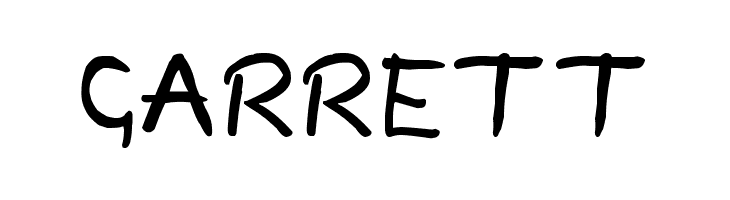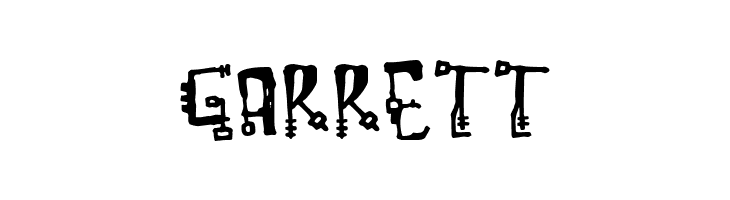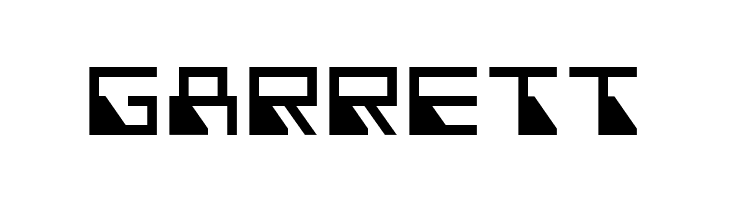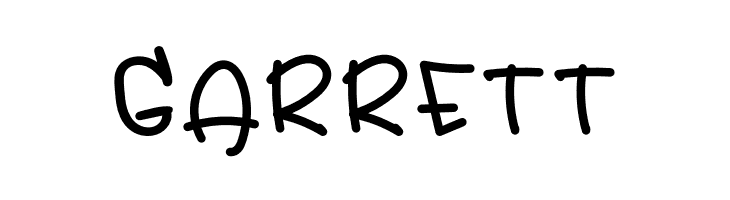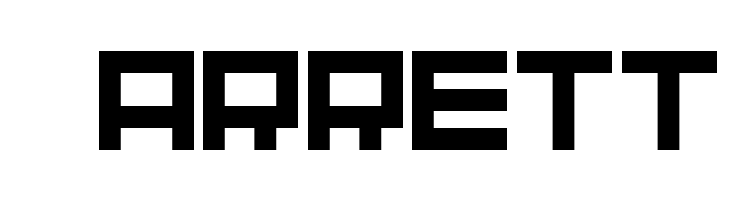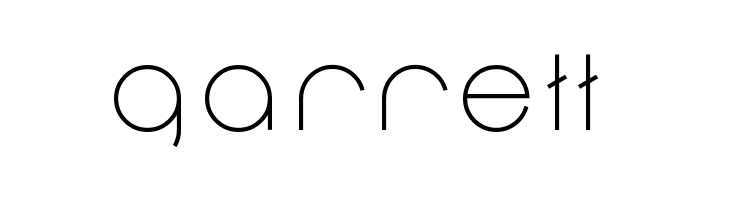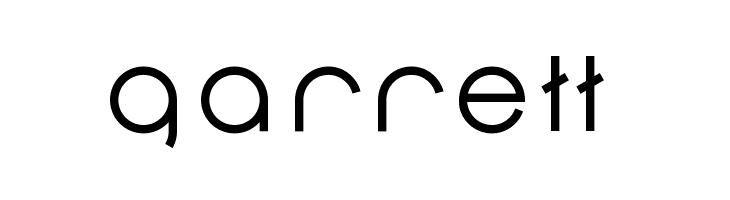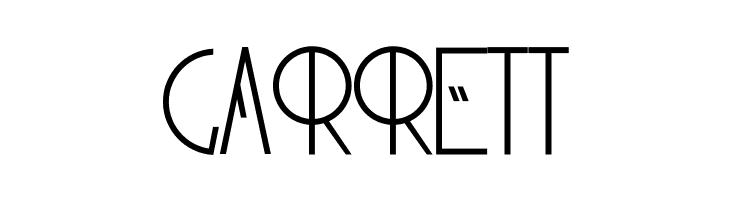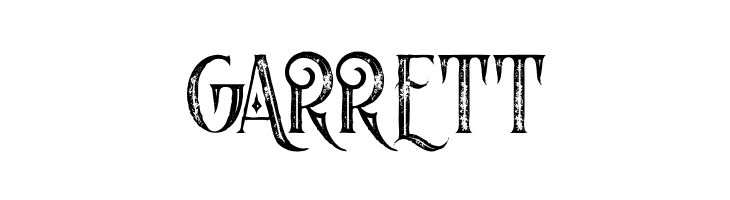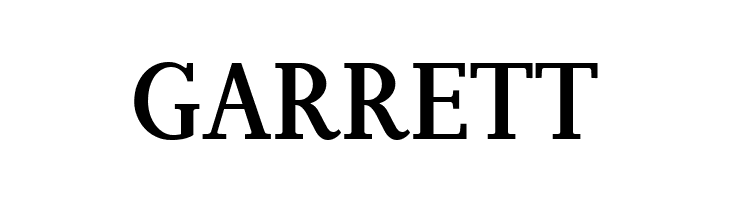
A grunge-style font with an inline design and decorative serifs.
A decorative grunge font with inline detailing and a vintage, distressed look.
A bold, narrow font with a modern and geometric style.
A decorative font with a mechanical, handcrafted appearance.
A bold, angular font with a futuristic and mechanical style.
A modern serif font with elegant and refined letterforms.
A rustic, hand-drawn font with uneven strokes and a vintage feel.
A bold, playful font with angular strokes and a dynamic, whimsical style.
A sophisticated script font with flowing, cursive letterforms and high contrast.
A playful, outline-style font with rounded, whimsical characters.
A playful and whimsical font with lively curves and angles.
A playful, bold font with a shadow effect and cartoon-like style.
A bold, graffiti-inspired font with sharp, angular lines and high contrast.
A modern geometric font with high contrast and stylish, elongated forms.
A minimalist, geometric font with clean lines and rounded edges.
A modern, geometric sans-serif font with a bold and clean design.
A clean, geometric font with a modern and balanced design.
A tall, narrow font with a modern, geometric design.
A bold, decorative font with high contrast and intricate, gothic-inspired design.
A bold, geometric font with high contrast and strong visual impact.
A playful, hand-drawn font with a whimsical and informal style.
A dynamic, expressive handwritten font with fluid, continuous strokes.
A lively and expressive handwritten font with fluid, cursive strokes.
A bold, geometric font with a digital, futuristic style.
A playful, bold handwritten font with tall, narrow letters and rounded edges.
Bold, circular pictogram icon set with high contrast.
A bold, geometric font with a three-dimensional, outlined style.
A bold, three-dimensional font with a strong, impactful presence.